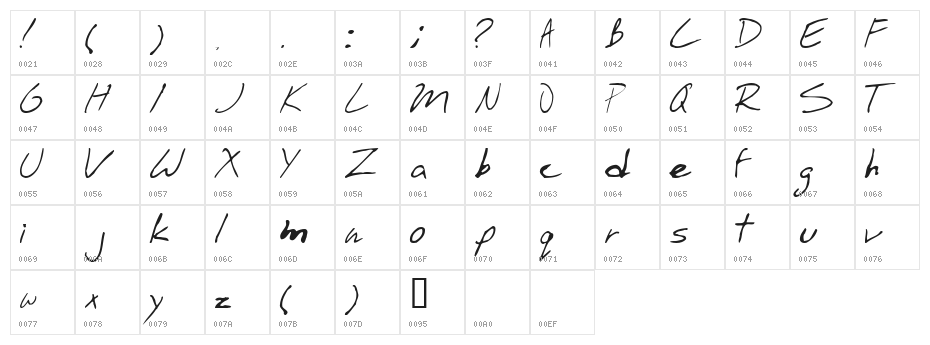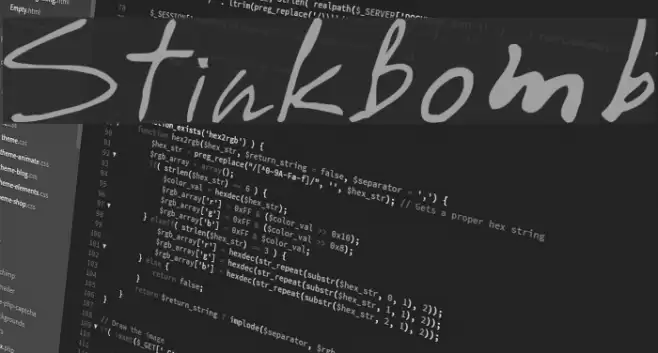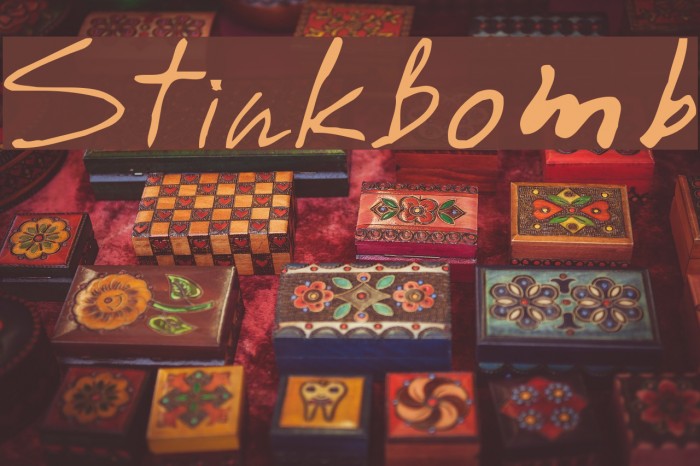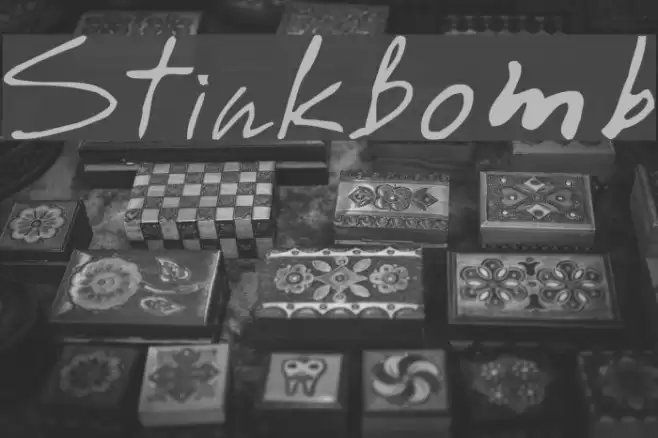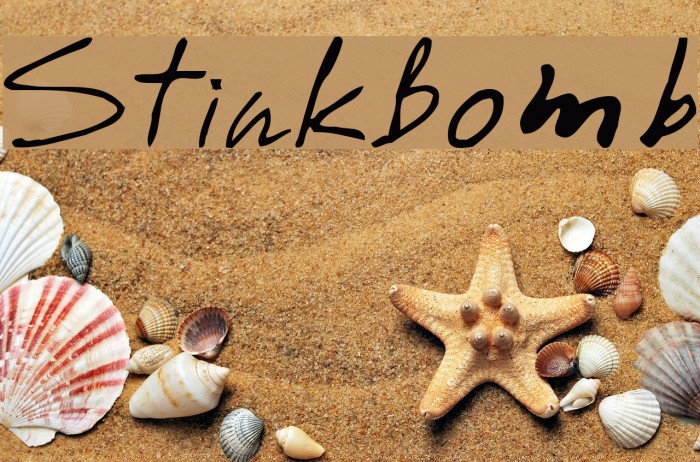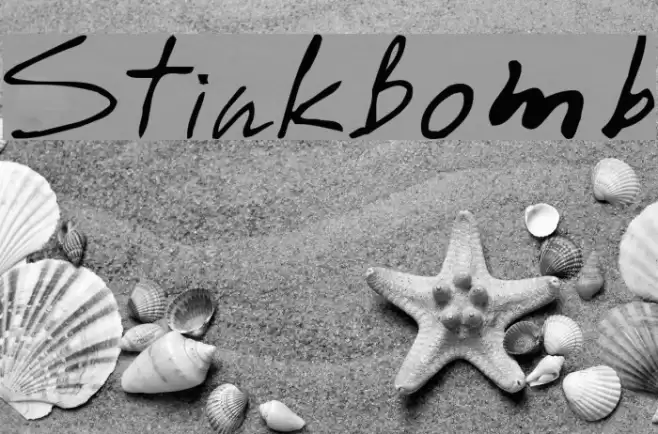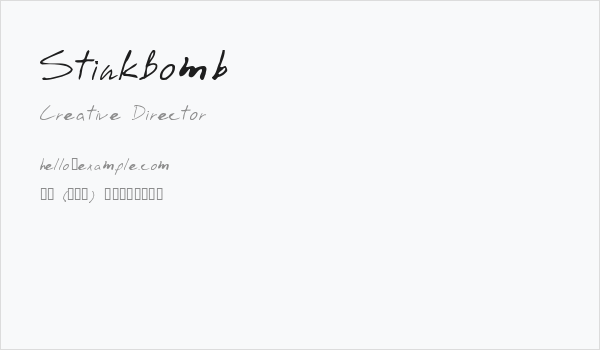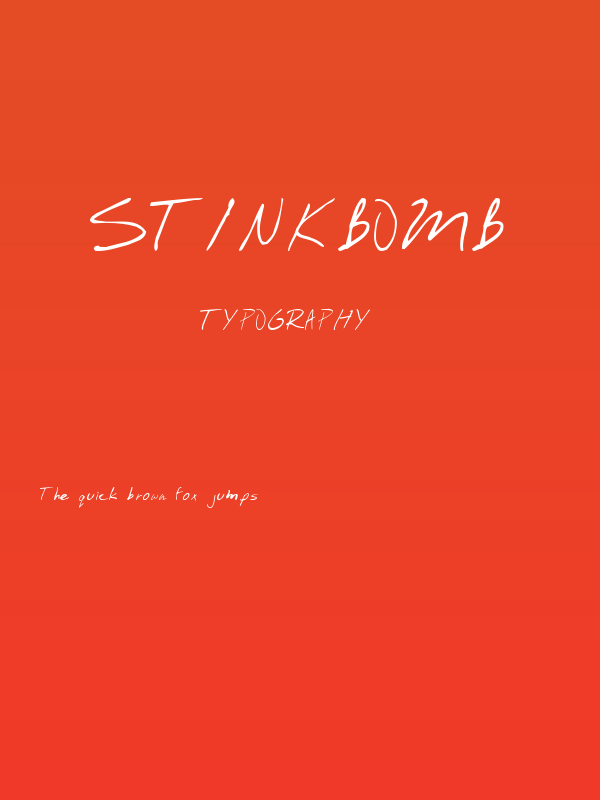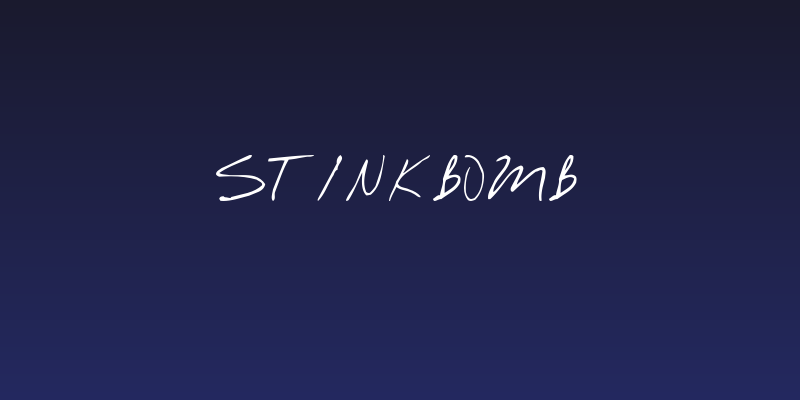
StinkBomb Font
StinkBomb Description
This font features a dynamic and expressive handwritten style, characterized by its fluid and irregular strokes. The uppercase letters are slightly slanted, giving a sense of motion and energy. The lowercase letters vary in thickness, adding a playful and informal touch. The numbers and special characters maintain the same lively aesthetic, making the font suitable for creative and artistic projects. The overall appearance is casual yet distinctive, with a personal and authentic feel that mimics natural handwriting.
| Overall Style | Casual, Artistic |
| Use Case | Logos, Posters, Invitations |
| Proposed Projects | Ideal for greeting cards, personal branding, artistic posters, and creative invitations. |